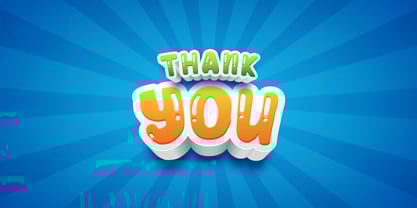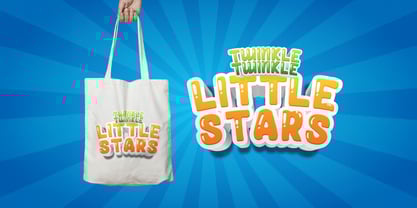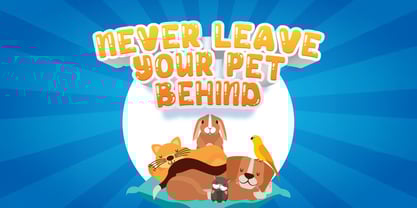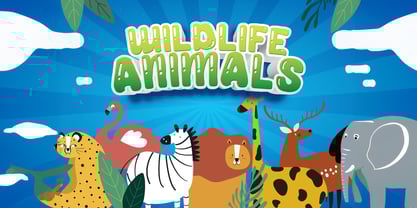
The Hey Kidos Font Family was designed by Virgiawan Listanto and published by Stringlabs Creative Studio. Hey Kidos contains 1 styles. More about this family
Hey Kidos! is a fun and lively display font designed to bring joy and energy to your designs. With its bold, rounded letters and cheerful vibe, this font is perfect for projects that need to capture attention with a playful and lighthearted touch. Its quirky character and vibrant style make it a standout choice for designs that aim to make a statement with a smile.
Designers: Virgiawan Listanto
Foundry: Stringlabs Creative Studio
Hey Kidos